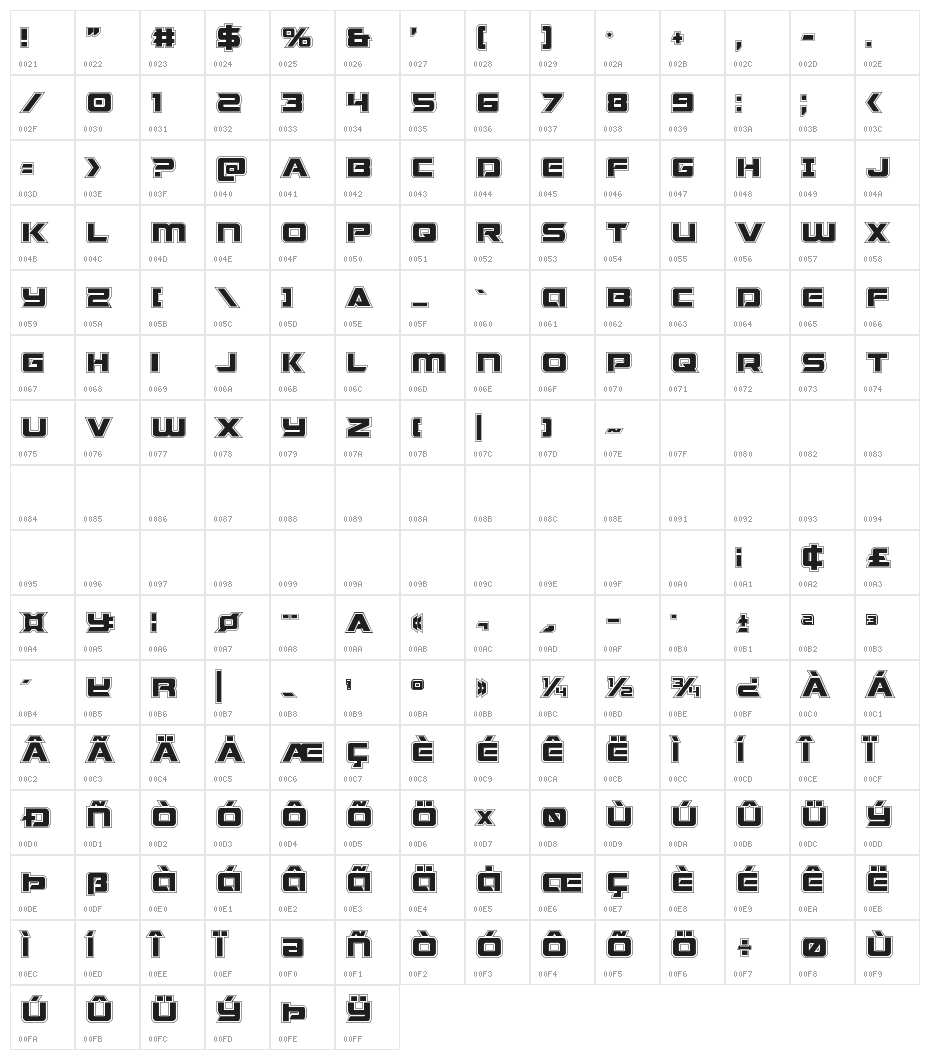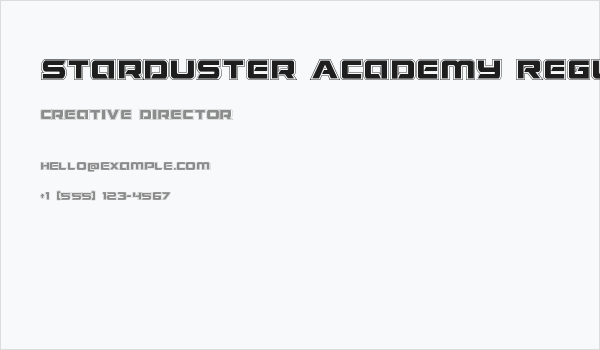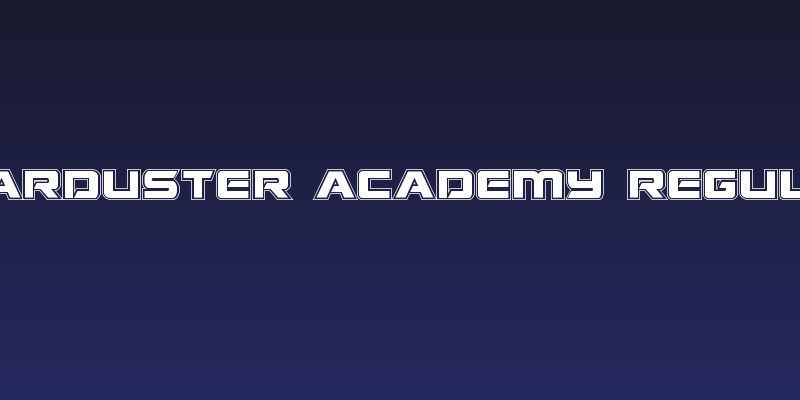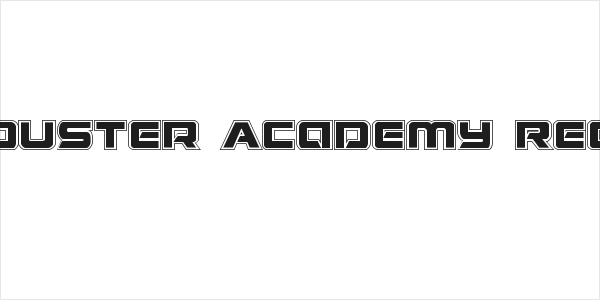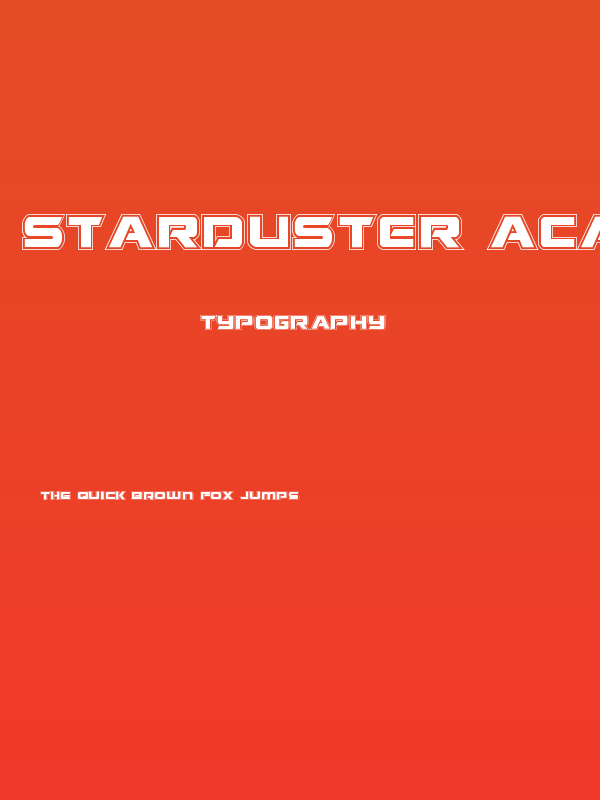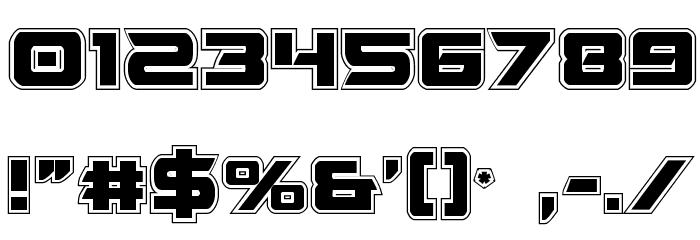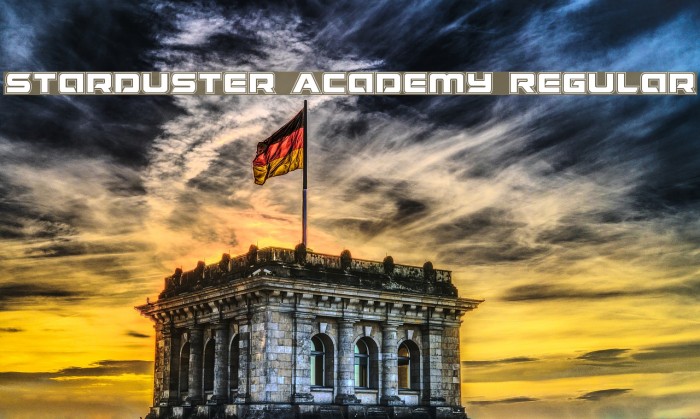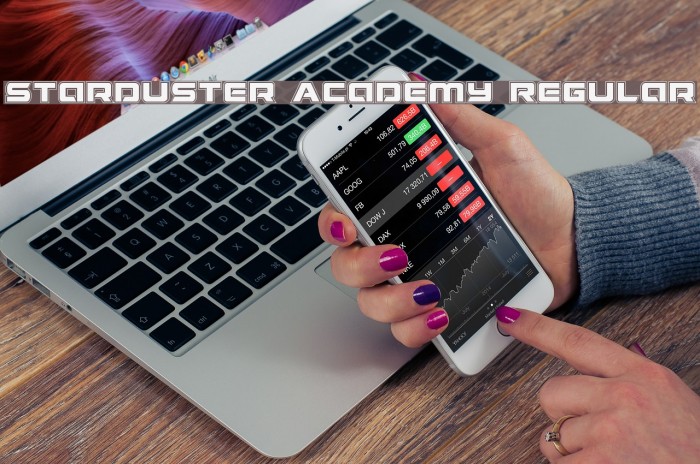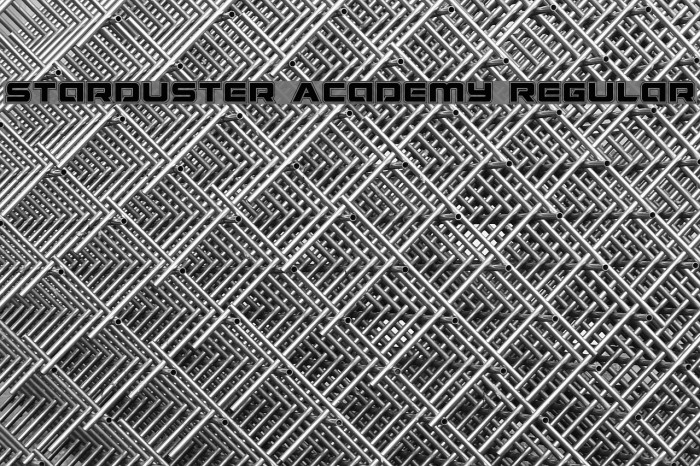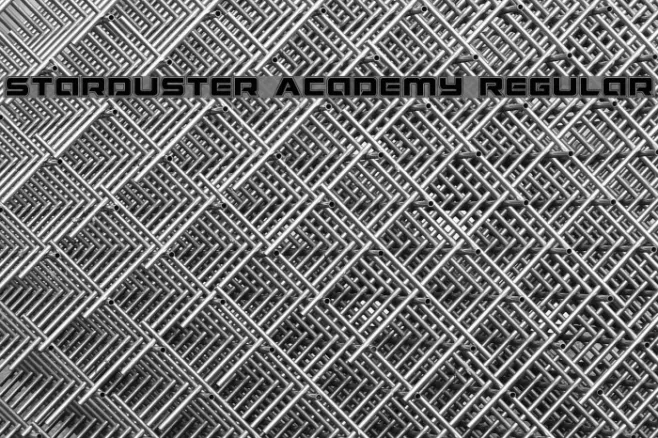
Starduster Academy Regular Font
Starduster Academy Regular Description
This font features a bold, futuristic design with a strong geometric structure. The characters are outlined with a thick border, creating a striking contrast between the inner and outer sections. The uppercase and lowercase letters maintain a consistent style, with sharp angles and clean lines. The numbers and special characters follow the same design principles, ensuring uniformity across all elements. This font's distinct appearance makes it ideal for projects that require a modern and dynamic look.
| Proposed Projects | Ideal for sci-fi themed designs, video game titles, posters, and branding that requires a modern edge. |